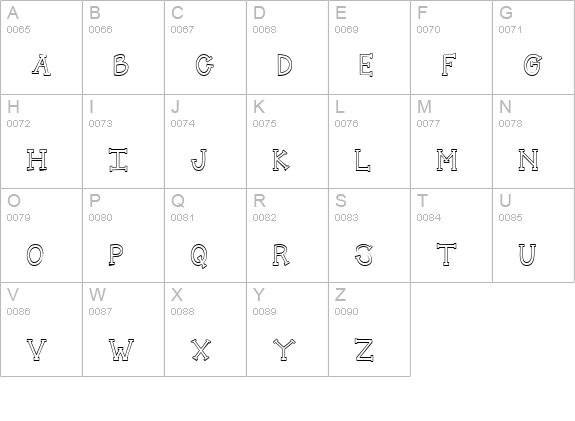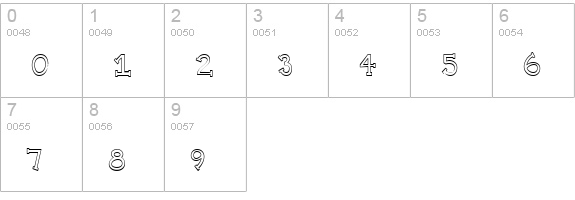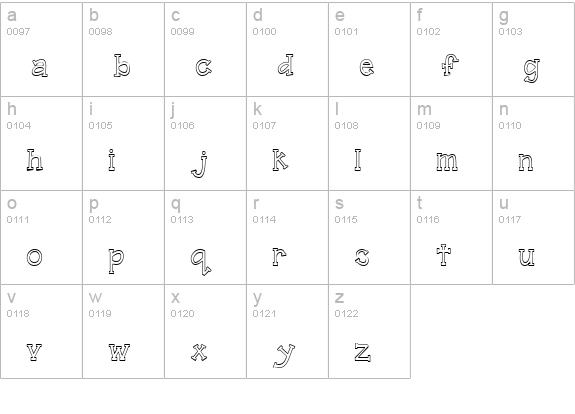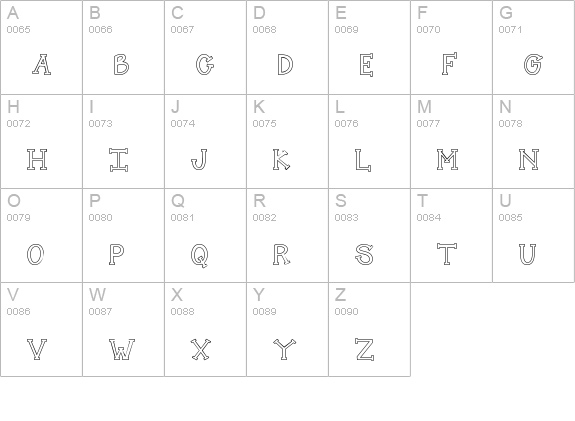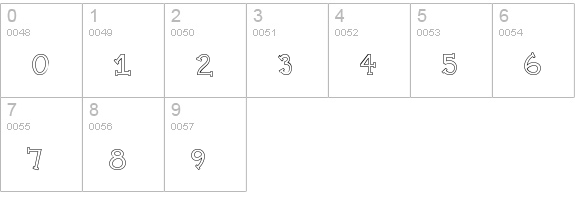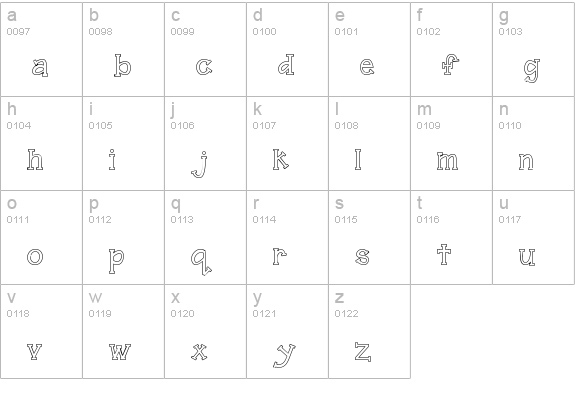
CK Skinny Serif Font Details
Introducing CK Skinny Serif font, a modern and elegant typeface designed to add sophistication and style to your projects. With its sleek and slender serifs, CK Skinny Serif exudes a sense of refinement and class, making it perfect for a wide range of design applications. Whether you're creating a logo, branding materials, or editorial designs, this font is sure to make a lasting impression. What sets CK Skinny Serif apart is its versatility and readability, making it suitable for both display and body text. The clean lines and balanced proportions of this font ensure optimal legibility across various sizes and mediums. Additionally, its timeless aesthetic gives a touch of timeless elegance to any project. The best part? CK Skinny Serif is available for free download at FontsMarket.com. Simply visit the website to access this font and elevate your designs with its sophisticated charm. Don't miss out on the opportunity to enhance your projects with this remarkable typeface. Download CK Skinny Serif today and let your creativity shine!